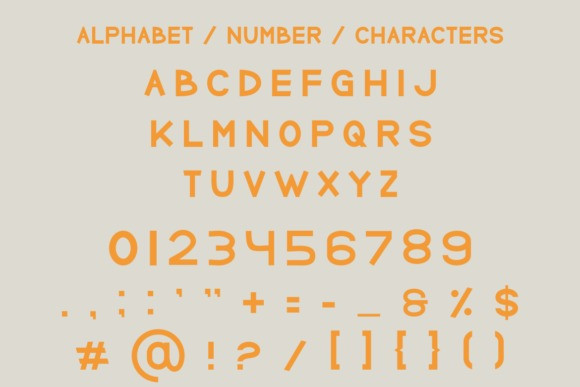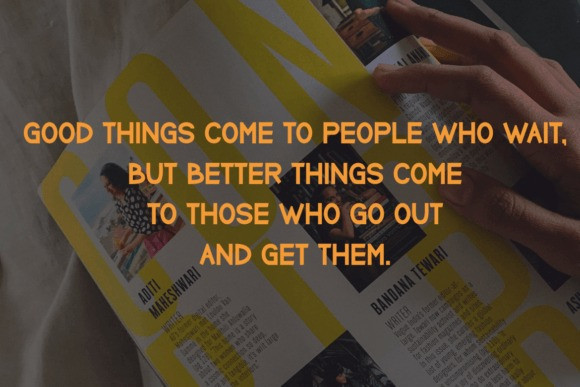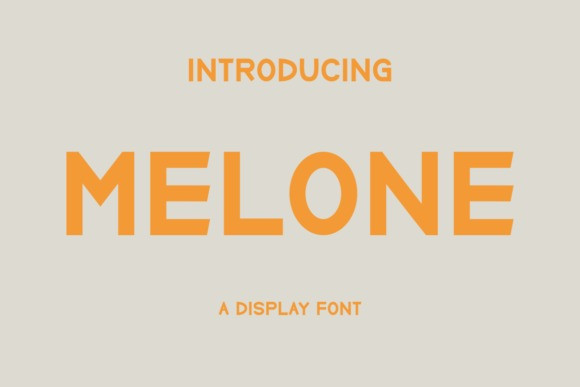
Melone Font
Melone Font is a modern font that has a bold and authentic look. The font is suitable for any branding project like logo, t-shirt printing, esports, and many more. outstanding in a wide range of contexts.